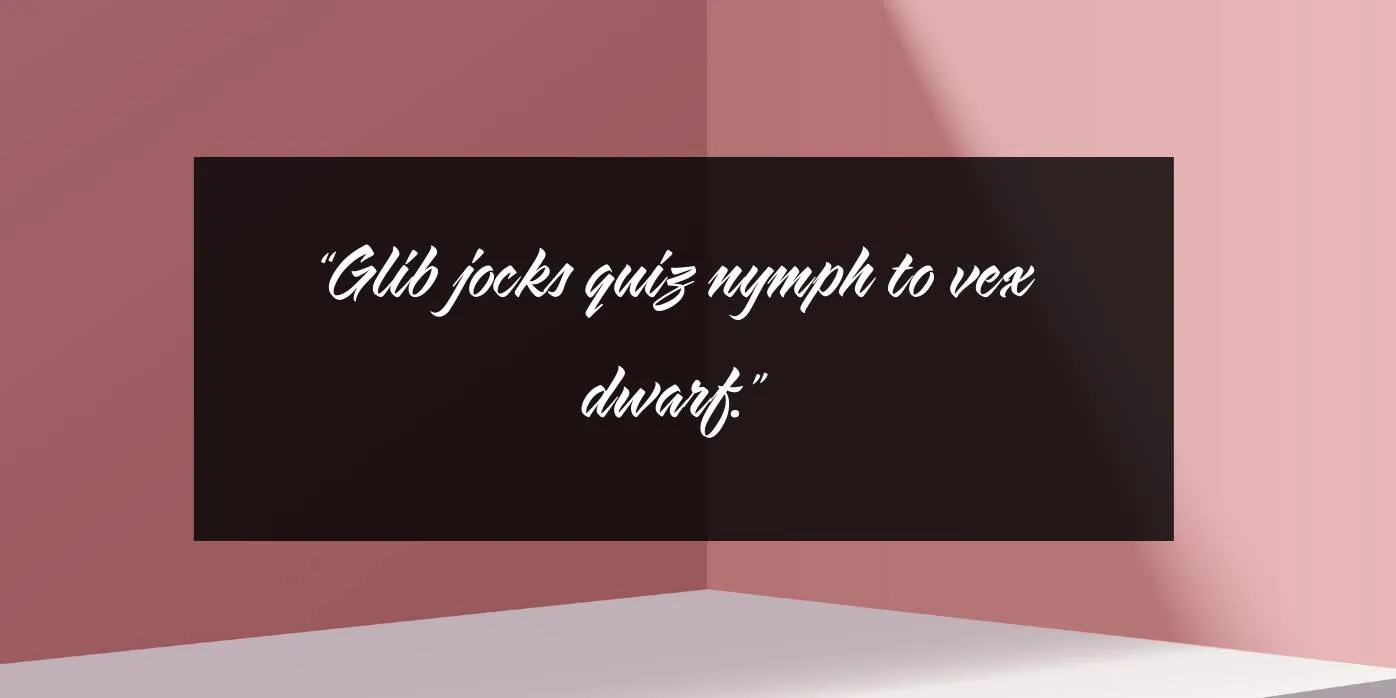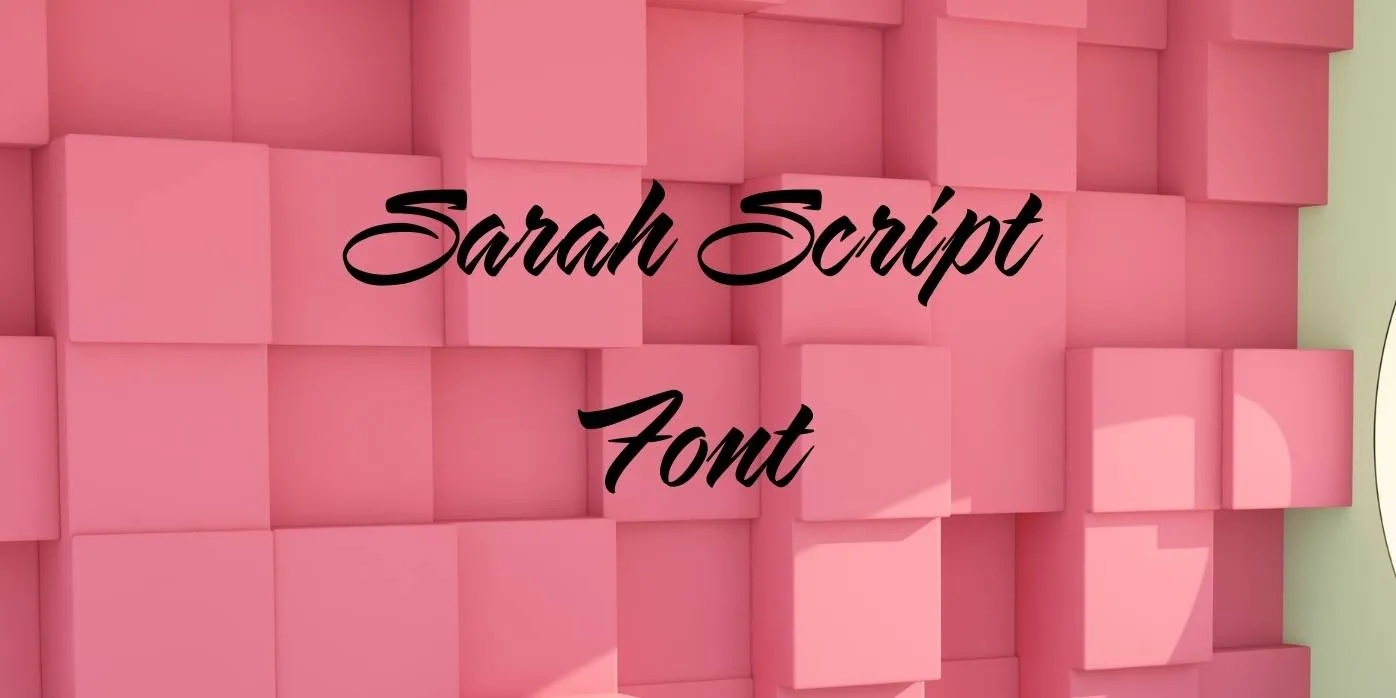
Sarah Script Font
Here, we are consulting on a modern font that is known by the name Sarah Script Font. It belongs to the Script typeface family. This stunning typeface was designed by Charles Borges de Oliveira. It was first released on 30 May 2017.
Sarah Script Typeface has a unique and attractive design. As a result, it is best suited for branding, invitations, and other creative projects. This stylish font supports Latin, Cyrillic, and Greek languages. In addition, it also includes various OpenType features.
Its similar script mt bold font has the same features as this typeface. It is available in one unique style. Its styles contain 576 characters. Furthermore, this amazing font family consists of 12 different fonts.